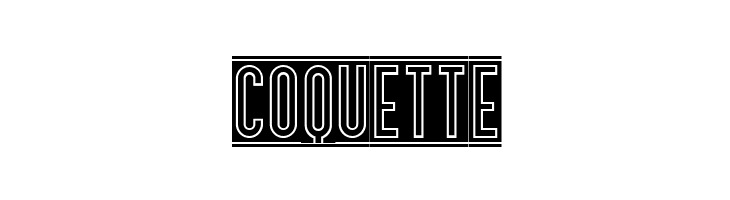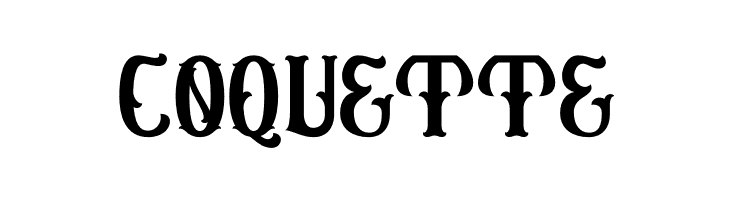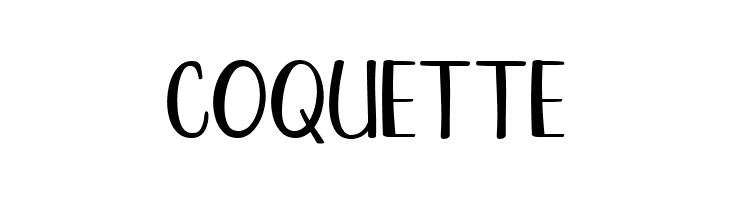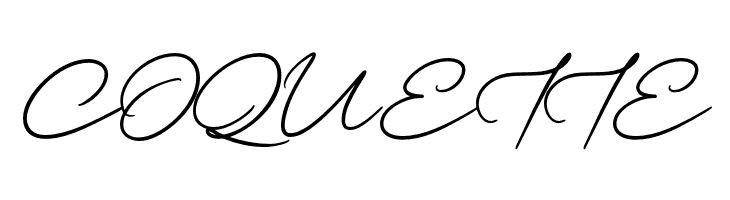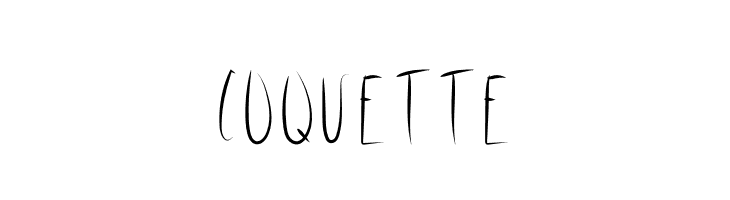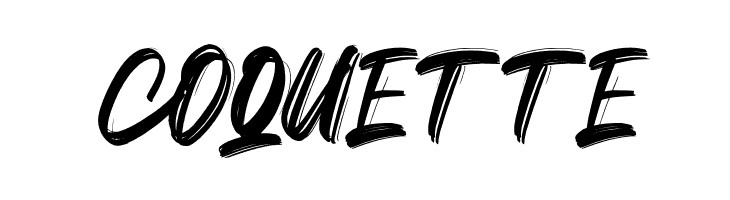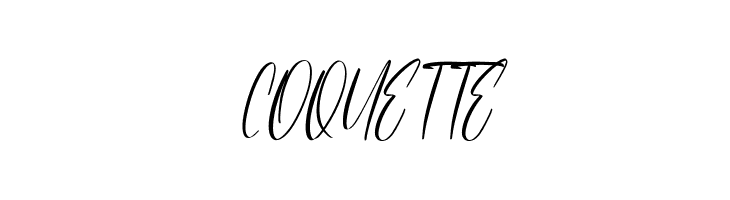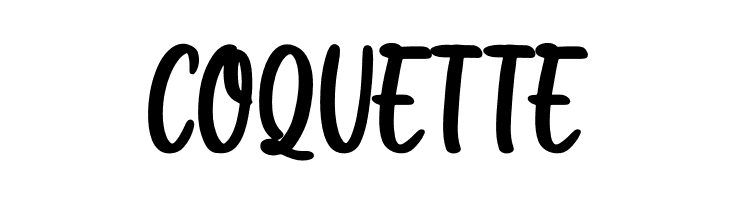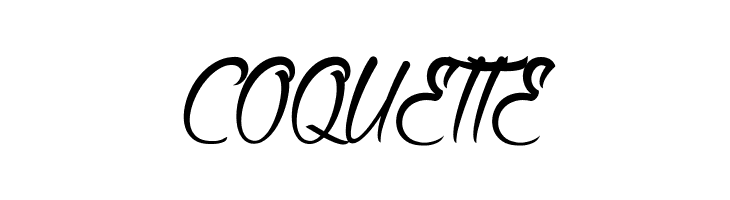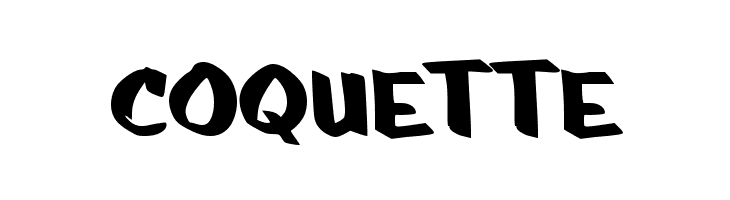
A bold, decorative font with a vintage circus-inspired style.
A whimsical, decorative font with playful, circus-themed characters enclosed in squares.
A whimsical, bold font with decorative, circus-themed elements.
Cartoonish circus and clown illustrations form each character.
Circus-inspired display font featuring detailed silhouette illustrations.
A whimsical, circus-themed decorative font with playful, animated characters.
A bold, decorative font with intricate detailing and elegant flourishes.
A bold, decorative font with intricate detailing and high contrast.
A playful, vintage-style font with bold outlines and dotted textures.
A whimsical, circus-themed font with characters in starburst shapes.
A bold, textured, and expressive handwritten font with a brush-like appearance.
A bold, decorative font with outlined characters and a three-dimensional effect.
A bold, hand-drawn font with a playful and dynamic style.
A modern, geometric font with clean lines and a minimalist style.
A whimsical, hand-drawn font with tall, slender letters and artistic flair.
Chunky, textured display font with playful, hand-drawn style.
A bold, brush-style font with a rough, textured appearance.
A playful, whimsical font with rounded, irregular letterforms.
An abstract, camouflage-inspired decorative font with bold, irregular shapes.
A decorative font with a camouflage-like pattern, ideal for artistic projects.
An abstract, camouflage-inspired font with fluid, organic outlines.
An abstract, camouflage-inspired font with bold, fluid outlines and organic shapes.
An abstract, stencil-like font with bold, irregular shapes resembling camouflage patterns.
An abstract, fragmented font with a camouflage-like appearance.
An abstract, outline font with a camouflage-like, artistic design.
A tall, narrow, hand-drawn font with a playful yet sophisticated style.
An elegant, flowing script font with a sophisticated, handwritten style.
A dynamic and elegant script font with a modern, handwritten style.
An elegant, flowing script font with interconnected letters and a sophisticated style.
A dynamic, cursive script font with a natural, handwritten feel.
A bold, brush-style font with dynamic and lively strokes.
A bold, energetic script font with smooth, flowing curves and a handwritten feel.
A bold, brush-style font with dynamic, hand-painted strokes.